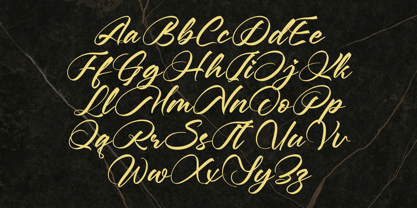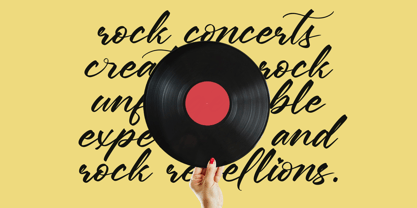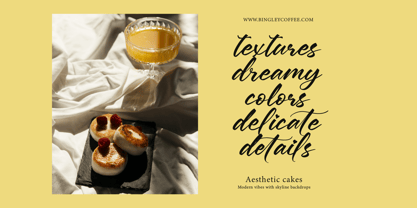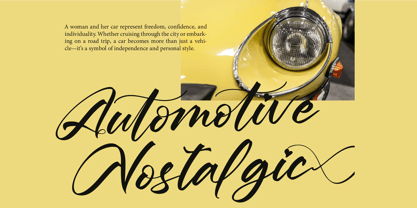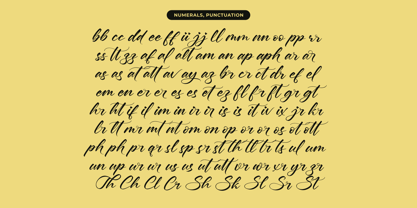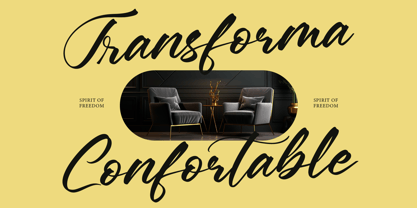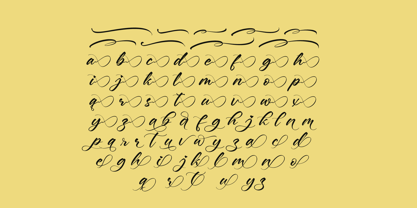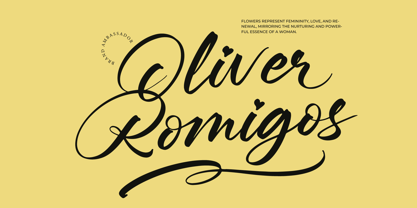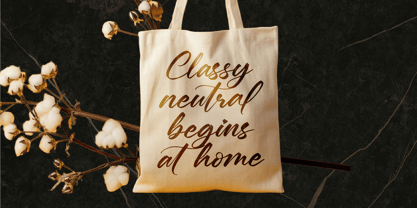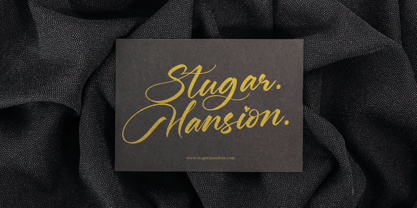
Boytang Keghora
by Letterena Studios
The Boytang Keghora Font Family was designed by Heru Utama Putra and published by Letterena Studios. Boytang Keghora contains 2 styles and family package options. More about this family
Boytang Keghora - Calligraphy Font Type , from Letterena, is a Luxury Script font, suitable for any projects such as: logos, branding projects, homeware designs, product packaging, mugs, quotes, posters, shopping bags, t-shirts, book covers, name card, invitation cards, greeting cards, label, photography, watermark, special events, and all your other luxury and beautiful projects that need a Luxury Script taste.